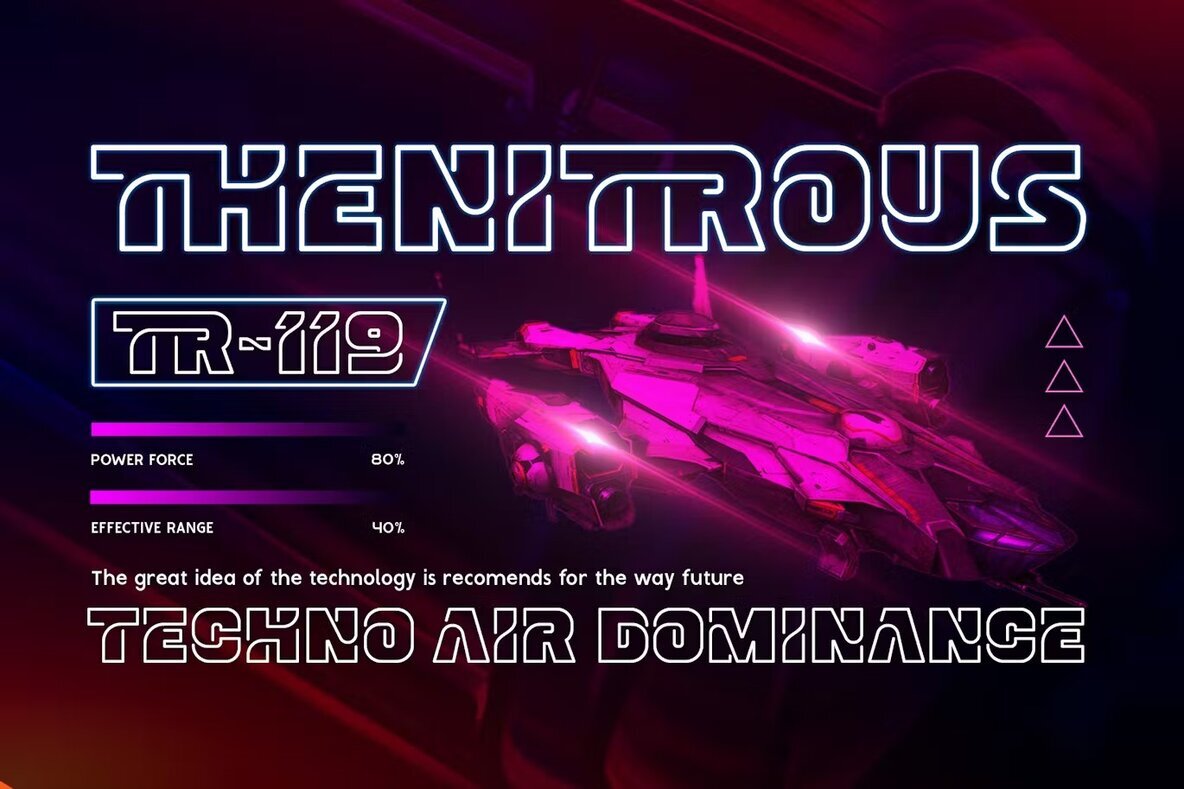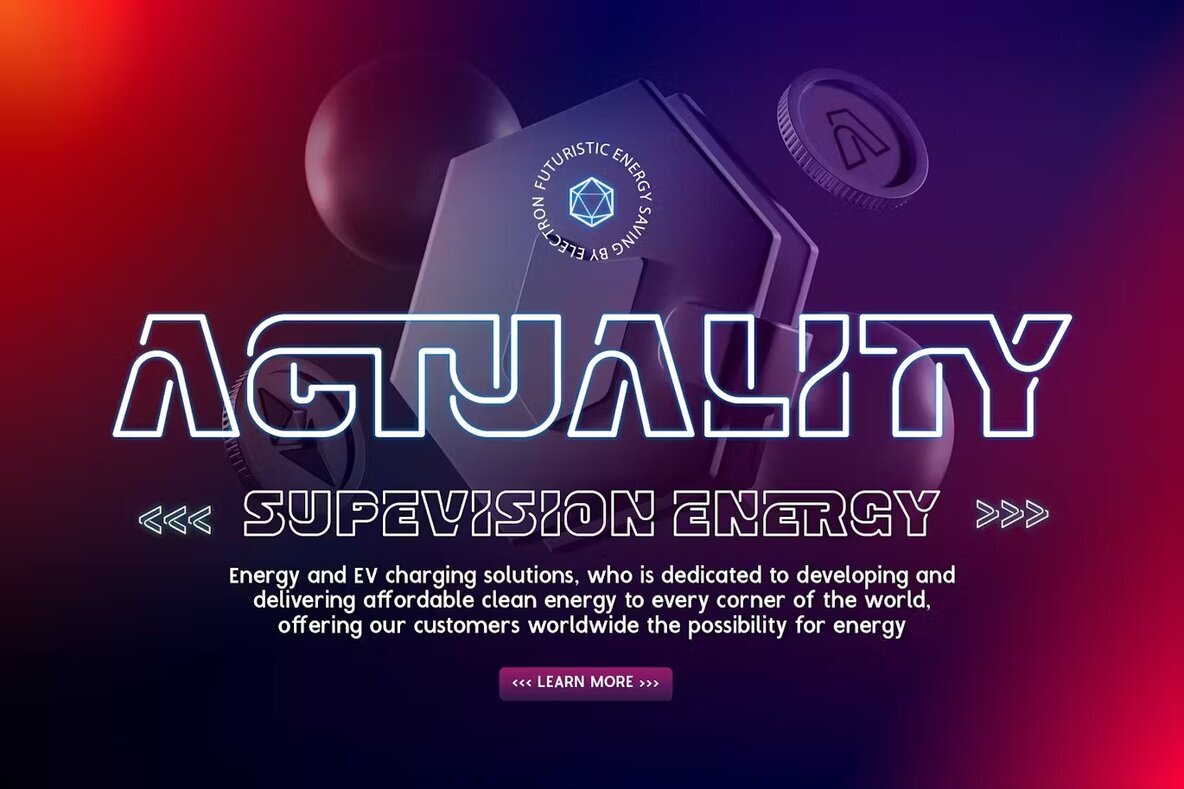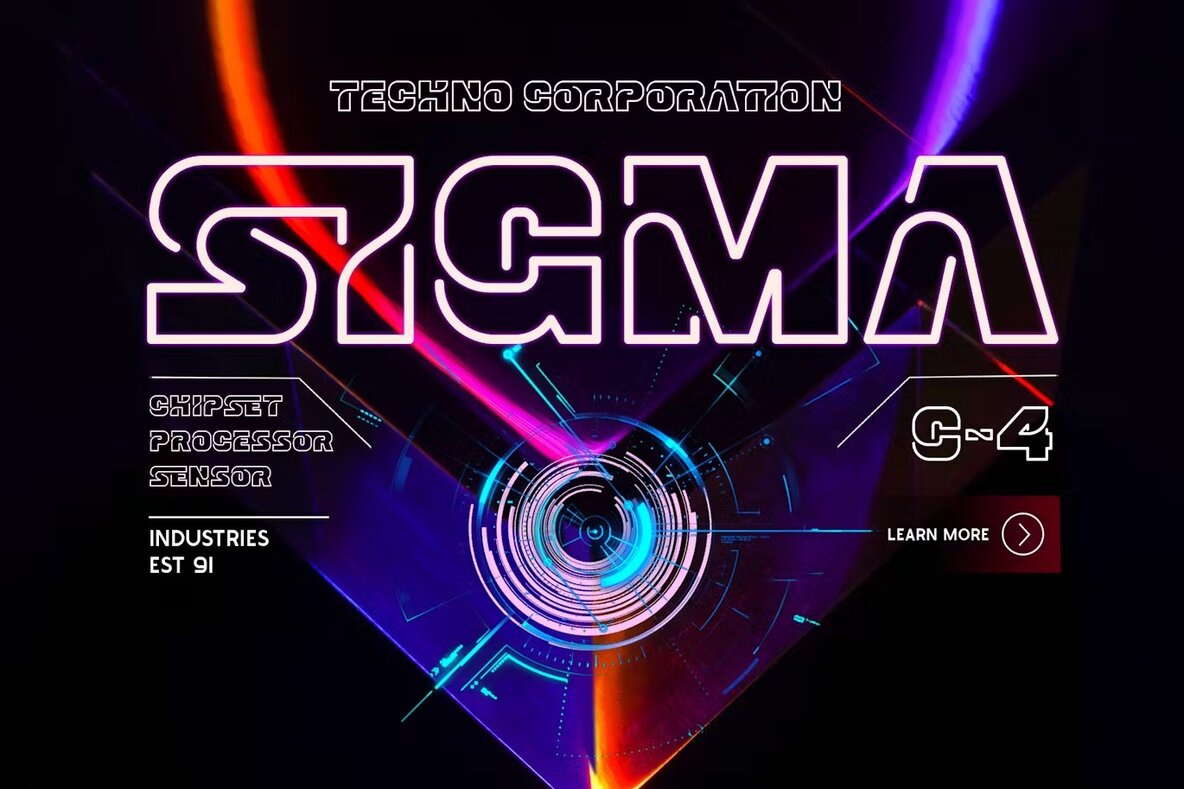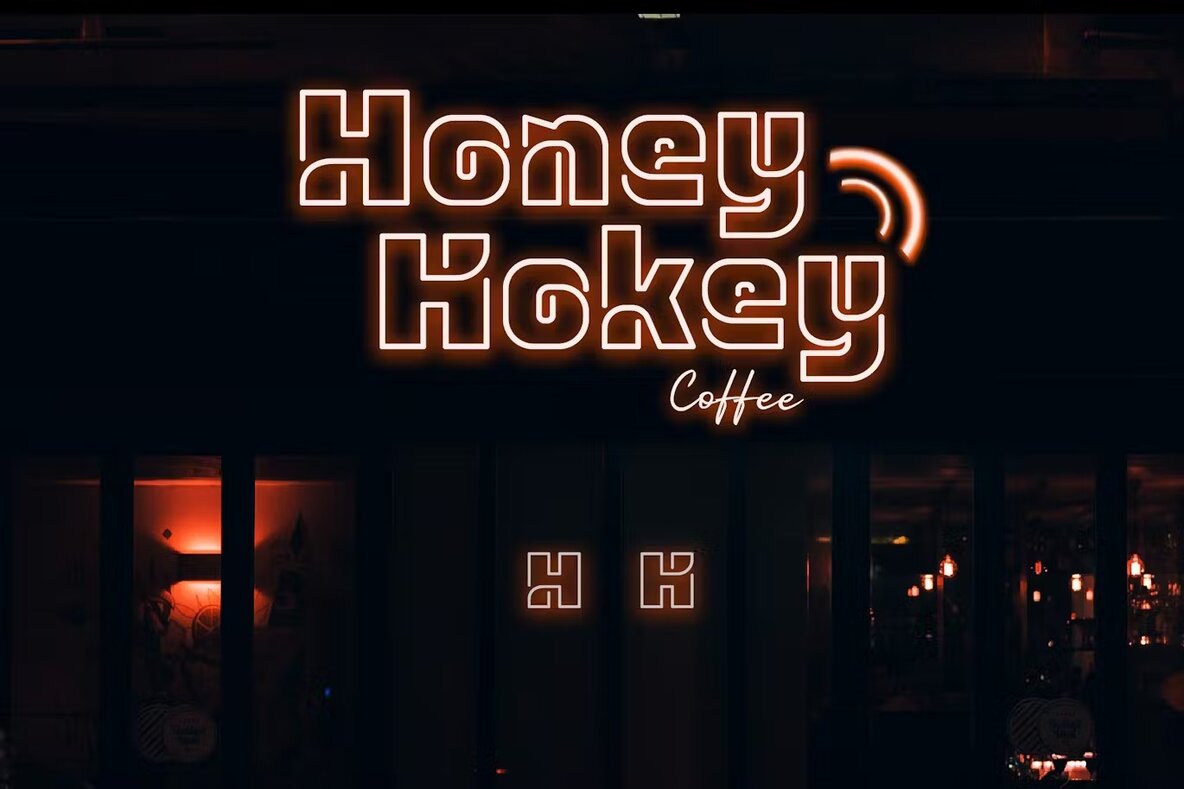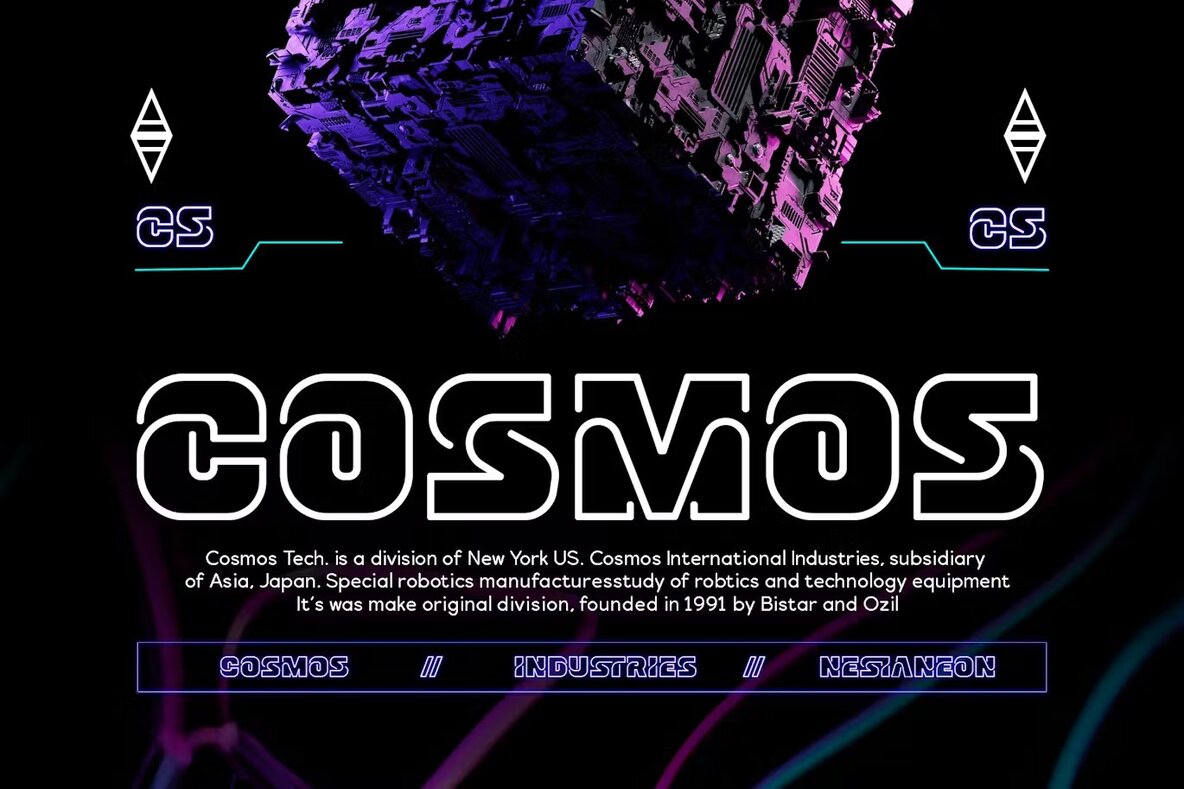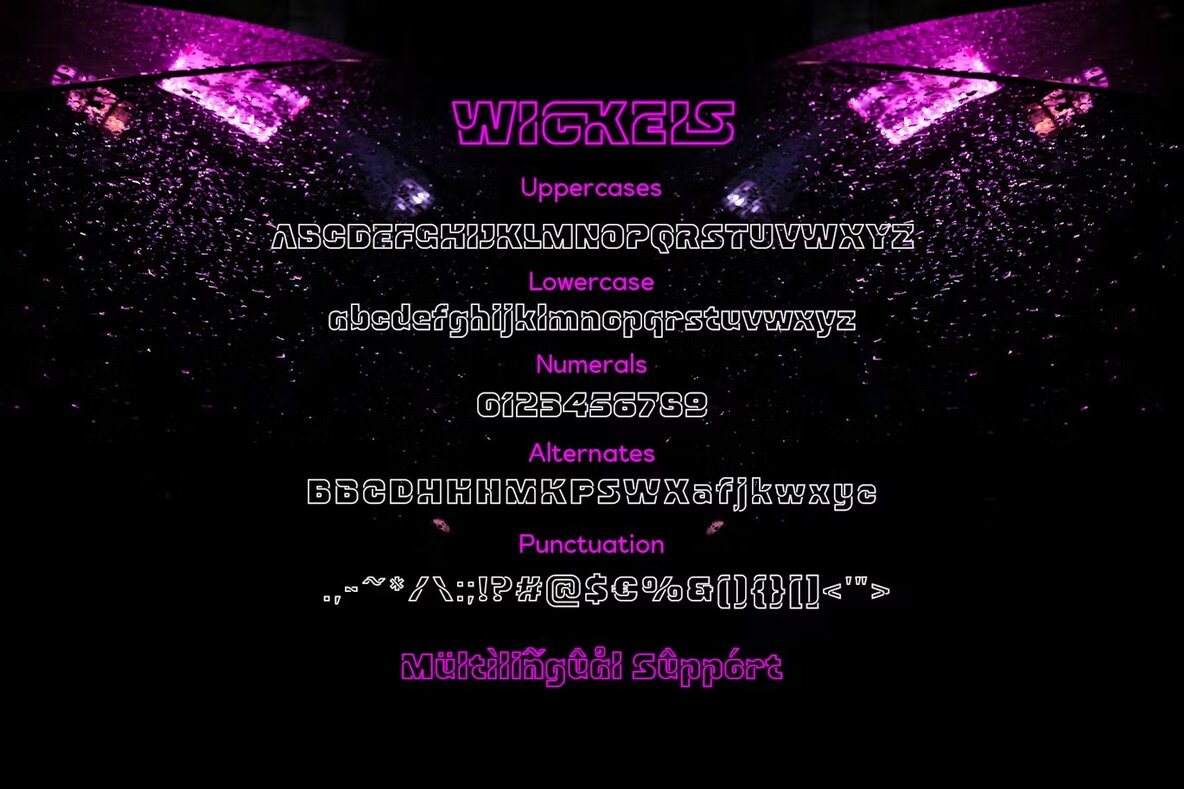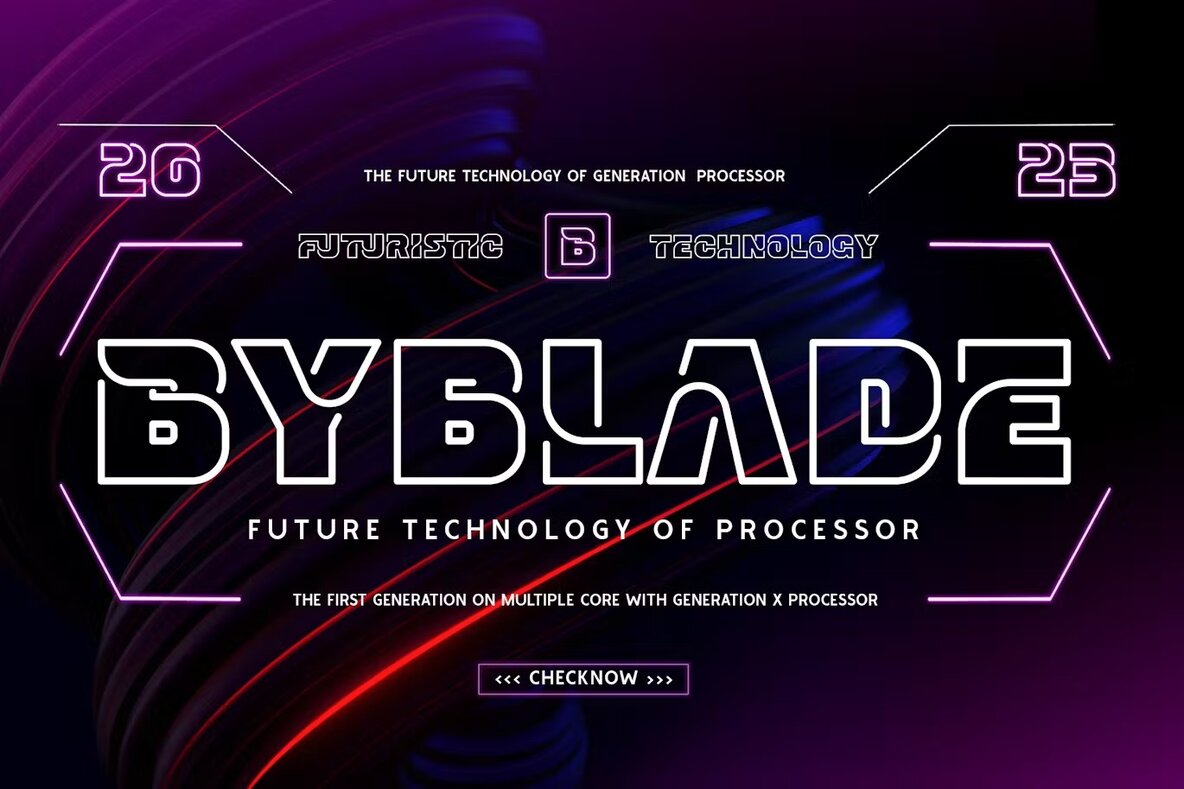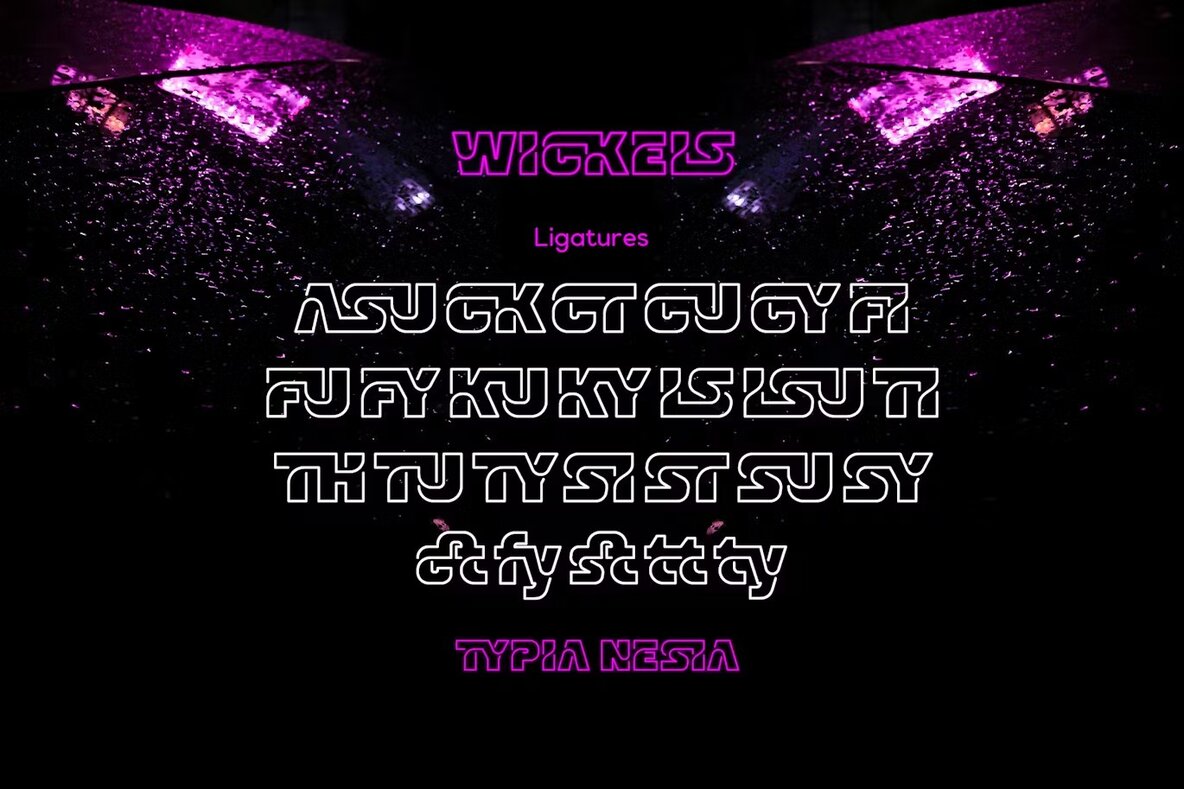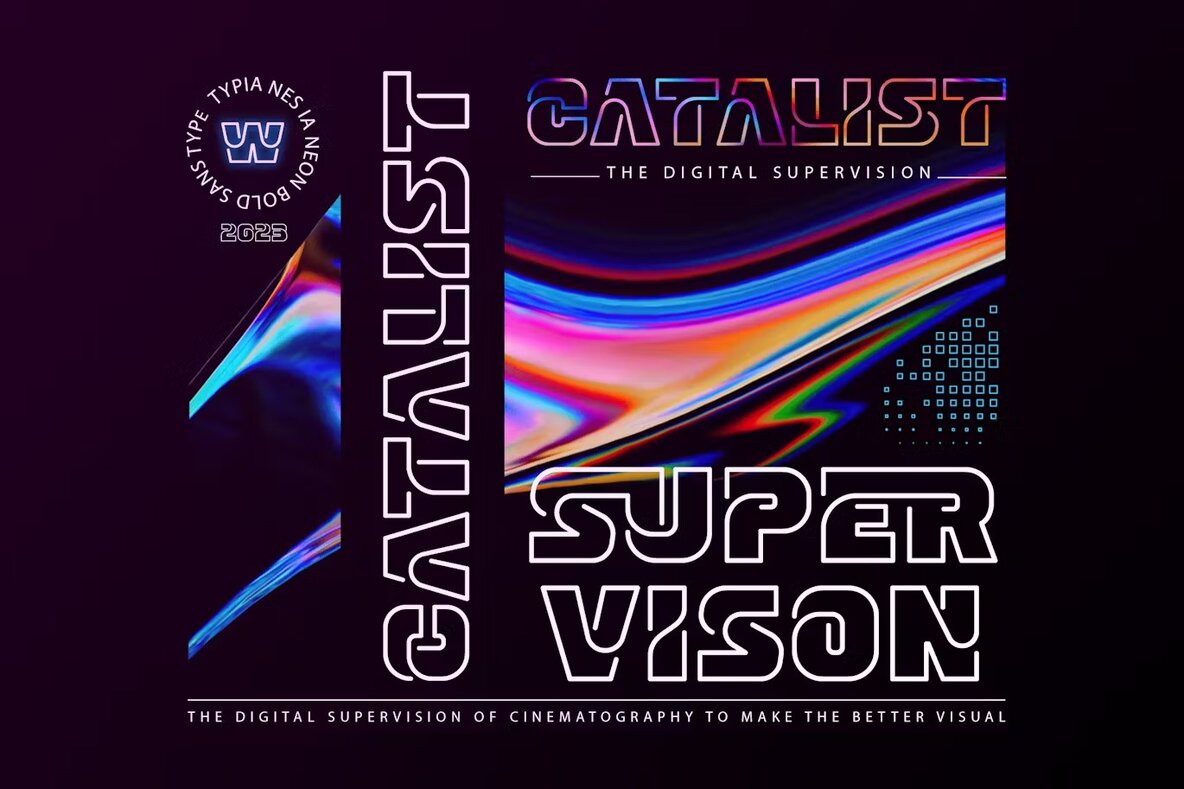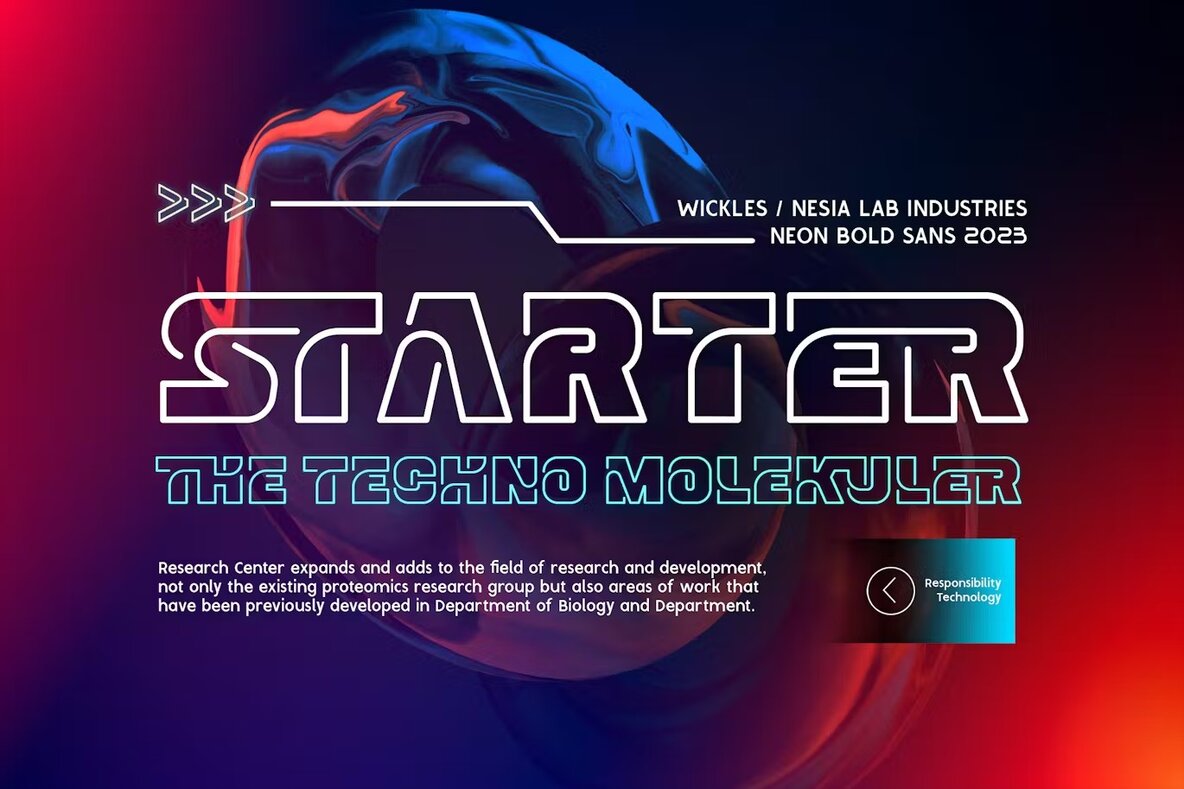
Wickels Font
Wickels Regular
Wickels is a dynamic display font that merges futuristic and retro aesthetics. This techno sci-fi typeface features an outline sans-serif style, echoing the look of vintage cafe neon signs. Ideal for posters, signage, digital displays, and futuristic-themed projects, Wickels brings a sleek, geometric touch to your designs. Its clean lines and captivating neon-like appearance provide a perfect balance of modern innovation and nostalgic flair, making it a standout choice for various creative applications.
One of Wickels's distinctive features is the inclusion of ligatures, which are unique character combinations that enhance visual harmony and consistency. These ligatures enable designers to craft cohesive and visually impressive letterforms, adding a sophisticated touch to any project. Perfect for those aiming to create striking and attention-grabbing techno sci-fi designs, Wickels offers a unique blend of futuristic style and retro charm. Illuminate your designs with Wickels and dive into the futuristic retro vibe now!